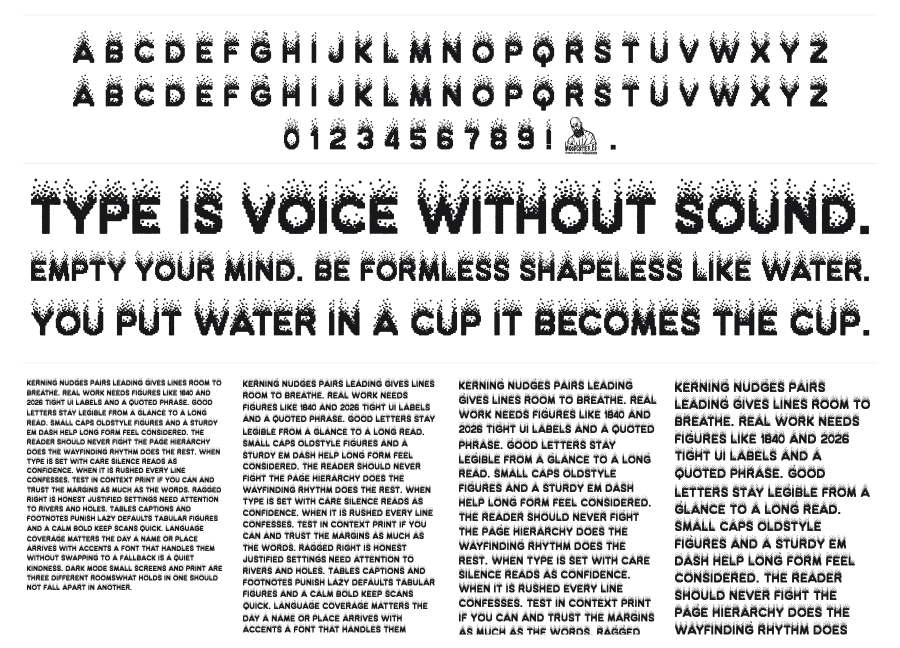
Efervescencia Programada
Efervescencia Programada is a bold condensed display font where each character appears to dissolve upward into a shower of tiny dot particles. The base of each letter stays solid and legible, but the upper portions break apart like carbonation rising through liquid or pixels scattering in a glitch. It carries real visual impact at large sizes, with a raw, kinetic quality that suits music, gaming, and underground graphics.